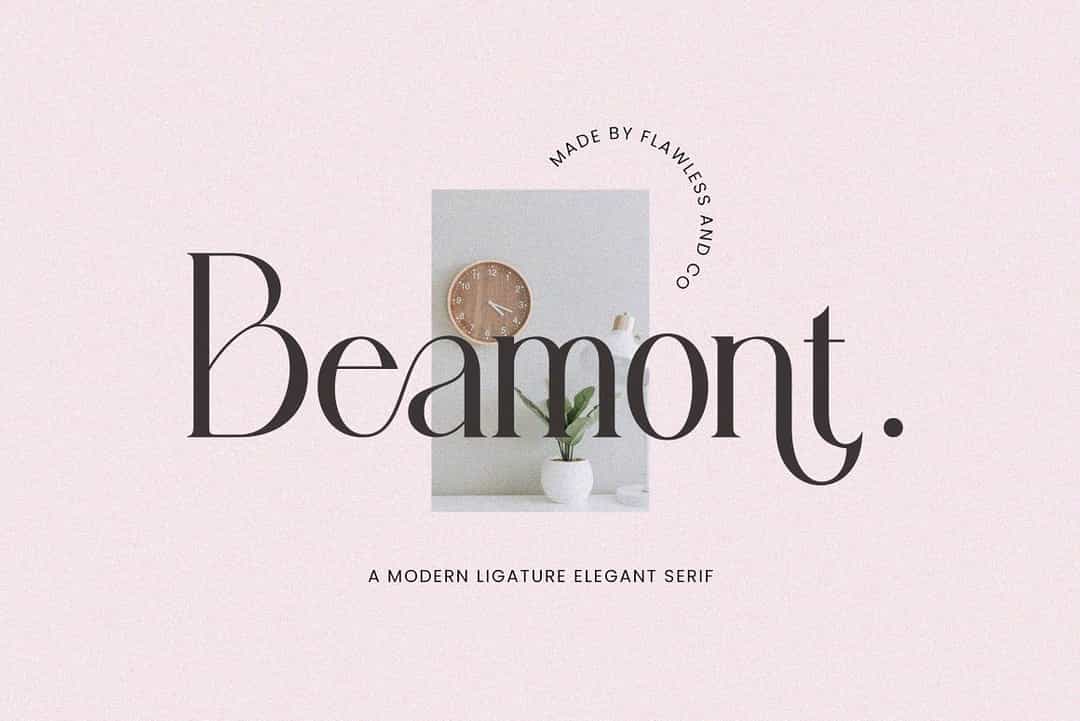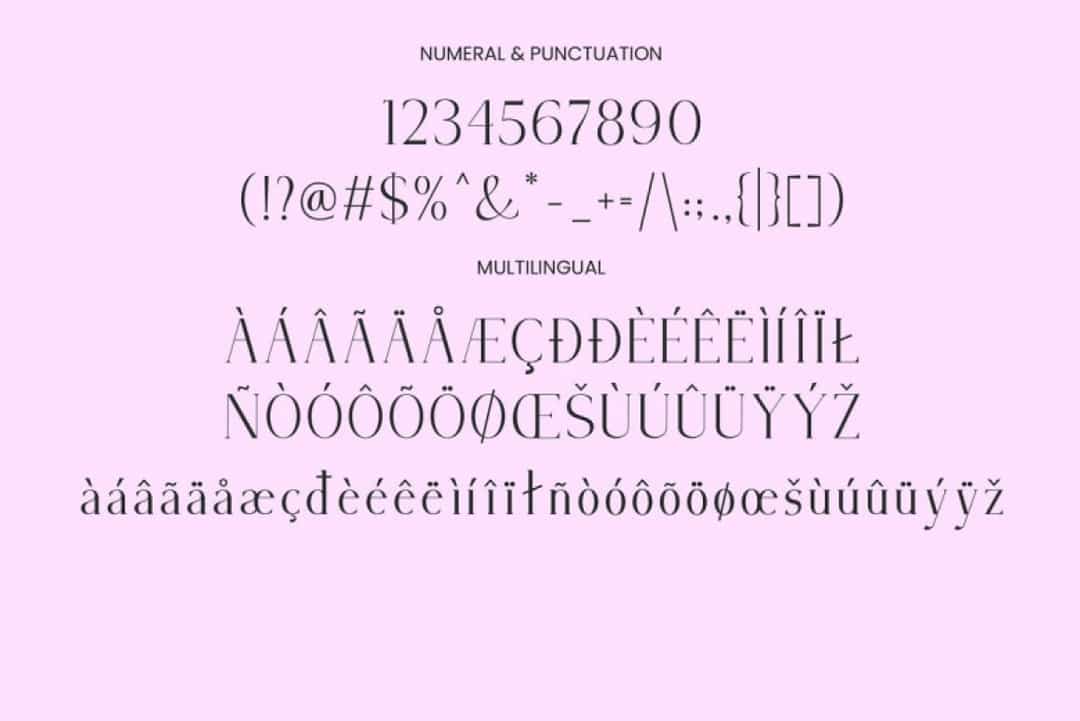
Beamontis an elegant modern ligature serif typeface created and designed by Flawless And Co. Known for its exquisite, soft, luxurious feel and refined exquisite look. For those lucky enough to own it, Beamont can be used in wedding invitations, presentation cards, magazines, web pages and cover designs as well as various other projects.